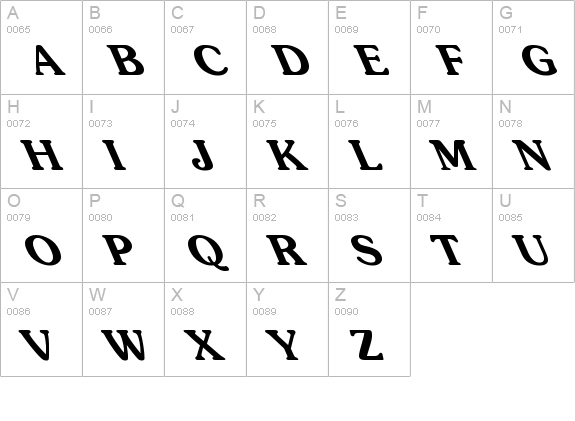
Souvenir Light Bold Lefites is a refined, elegant variant in the Souvenir typeface family \xE2\x80\x94 well suited to elegant body text, refined sub-headings, and luxury branding.
Souvenir Light Bold Lefites font is a magnificent and eye-catching typeface that exudes elegance and charm. Its bold and prominent letterforms command attention and make a lasting impression. With its unique combination of sleek curves and sharp edges, this font is perfect for creating striking headlines, captivating logos, and engaging designs. One of the standout features of Souvenir Light Bold Lefites font is its versatility. It effortlessly transitions from formal to informal contexts, making it suitable for a wide range of design projects. Whether you're designing a sophisticated wedding invitation, a modern website, or a playful poster, this font will elevate your work and give it a touch of class. What makes Souvenir Light Bold Lefites font even more remarkable is that it is freely available to download at FontsMarket.com. Yes, you read that right – this exceptional font can be yours at absolutely no cost. FontsMarket.com is a trusted source for high-quality fonts, and they are generously offering this font as a free download for all design enthusiasts. Downloading Souvenir Light Bold Lefites font from FontsMarket.com is a breeze. Simply visit their website, search for the font, and with just a few clicks, it will be ready to enhance your design projects. The font files are compatible with both Mac and Windows operating systems, ensuring seamless integration into your preferred design software. With Souvenir Light Bold Lefites font, you have the freedom to unleash your creativity and bring your vision to life. Whether you're a professional designer, a student, or a hobbyist, this font will undoubtedly become a valuable asset in your font library. Its timeless appeal and versatility make it a go-to choice for various design applications. So, why wait? Download Souvenir Light Bold Lefites font today from FontsMarket.com and take your designs to new heights. Embrace the beauty of this font, and let it make a lasting impression on your audience. With its bold and captivating presence, your designs will stand out from the crowd and leave a lasting impression.